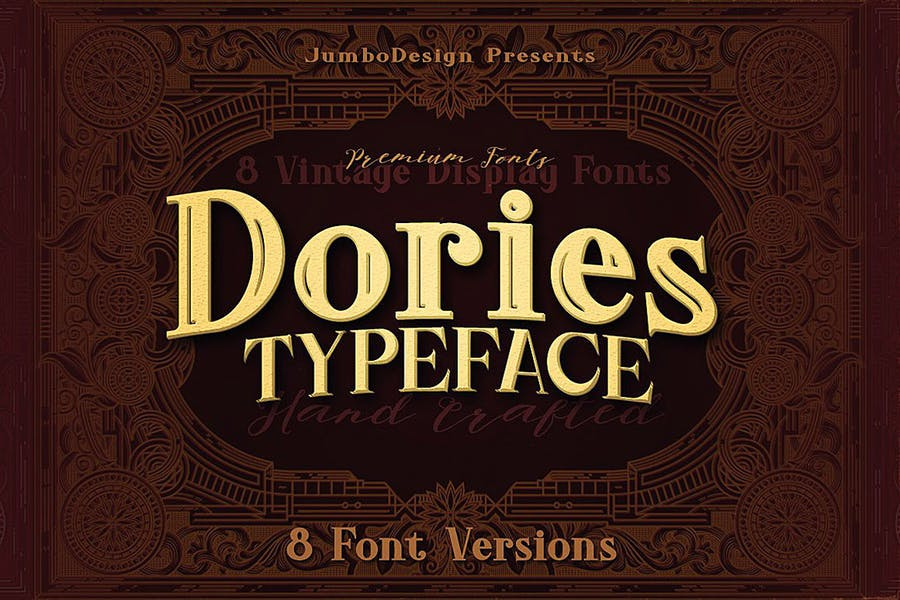
Dories - Display Font
Dories Display Font is perfect for maritime adventure marketing, coastal restaurant branding, fishing industry communications, nautical equipment packaging, seaside tourism advertising, marine heritage displays, boat charter services, and oceanic lifestyle campaigns.
What makes Dories Display Font exciting is its seafaring authenticity that embodies the rugged reliability and maritime tradition of coastal fishing with oceanic heritage and nautical craftsmanship. The font features sturdy letterforms with boat-inspired proportions and seafaring character that evoke fishing dories, harbor docks, and the time-tested durability of maritime work boats and coastal fishing tradition. Its distinctive nautical styling and maritime appeal communicate reliability, tradition, and oceanic authenticity, making every message feel weathered by sea spray and touched by the honest craftsmanship of coastal fishing and maritime heritage.
The Dories Display Font family includes regular weight with uppercase and lowercase letters, numerals, punctuation marks, and special characters. Premium versions often feature maritime alternates and nautical elements that enhance the seafaring, coastal aesthetic perfect for marine and fishing applications.
This reliable maritime typeface brings instant authenticity and oceanic credibility to any seafaring project. Dories Display Font Free Download offers exceptional value for marine businesses and coastal organizations seeking to communicate maritime tradition, oceanic reliability, and seafaring authenticity to fishing communities and coastal lifestyle enthusiasts.
The nautical character of Dories Display Font makes it particularly valuable for fishing companies, marine equipment manufacturers, and coastal tourism operators. Its excellent readability ensures maritime information and fishing communications remain clear while maintaining the distinctive seafaring aesthetic that appeals to mariners seeking authentic oceanic experiences and traditional fishing heritage.
Coastal maritime marketers appreciate how Dories Display Font effortlessly conveys nautical authenticity and seafaring tradition. The font's sturdy proportions and maritime details create trustworthy brand materials that establish connections with audiences who value oceanic heritage, fishing tradition, and the reliable craftsmanship of coastal boat building and maritime work.
The versatile maritime nature of this typeface extends to marine conservation, fishing education, and coastal heritage preservation where nautical authenticity enhances oceanic credibility and maritime appeal. Dories Display Font Free Download provides creative professionals with an essential tool for developing memorable, tradition-driven designs that resonate with audiences who embrace maritime heritage, fishing culture, and the sturdy reliability of coastal dories in their oceanic and fishing experiences.